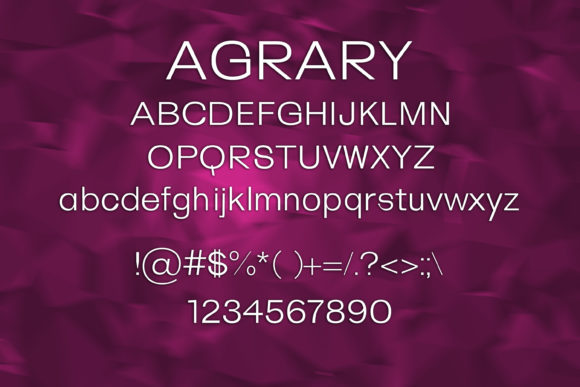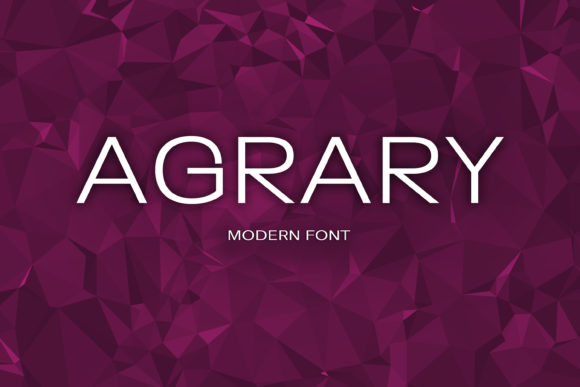
Agrary Font: A Modern Twist on Traditional Sign Painting
In the world of typography, fonts play a crucial role in conveying messages, expressing creativity, and setting the tone for a brand or design. For designers and crafters, finding the perfect font can be a daunting task, especially when looking for something that combines classic inspiration with modern flair. This is where Agrary Font comes in – a stunning sans serif font that draws inspiration from traditional sign painting, with a clean and minimal twist.
The Inspiration Behind Agrary Font
Agrary Font is a unique blend of traditional and modern design elements. Its roots lie in the classic sign painting techniques that have been used for centuries to create eye-catching advertisements and signs. The font’s creator aimed to capture the essence of these traditional methods and infuse them with a modern, sans serif approach. The result is a font that exudes a sense of nostalgia while still feeling fresh and contemporary.
Key Features of Agrary Font
Agrary Font boasts several key features that make it an excellent choice for modern designs:
- Clean and Minimal: Agrary Font’s sans serif design ensures that your text remains clean and easy to read, making it perfect for a wide range of applications, from digital media to print materials.
- Modern Twist: The font’s modern approach to traditional sign painting gives it a unique edge, allowing you to add a touch of sophistication to your designs.
- High Versatility: Agrary Font is highly versatile, making it suitable for various design projects, including logos, headings, and body text.
- Ease of Use: The font is designed to be easy to use, even for those without extensive design experience.
What Makes Agrary Font Perfect for Modern Designs?
Agrary Font’s unique blend of traditional inspiration and modern design makes it an ideal choice for designers and crafters looking to create stunning, contemporary designs. Here are a few reasons why:
- Unique Aesthetic: Agrary Font’s distinctive style sets it apart from more traditional fonts, allowing you to create designs that stand out from the crowd.
- Flexibility: The font’s versatility ensures that it can be used across a wide range of design projects, from minimalist branding to more elaborate designs.
- Timeless Appeal: Agrary Font’s classic inspiration ensures that it will remain relevant for years to come, making it a great investment for designers and crafters.
- Use it for Headings and Body Text: Agrary Font’s versatility makes it suitable for both headings and body text, allowing you to create cohesive designs.
Agrary Font is a stunning sans serif font that brings a modern twist to traditional sign painting. Its clean and minimal design makes it perfect for modern designs, while its unique aesthetic and timeless appeal ensure that it will remain a popular choice for designers and crafters. Whether you’re looking to create a logo, heading, or body text, Agrary Font is an excellent choice. With its ease of use and high versatility, it’s an ideal addition to any designer’s toolkit.